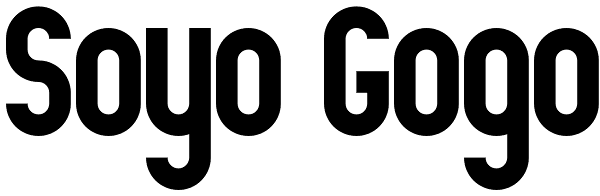
Soyo Gogo
Soyo Gogo was conceived to really make the most of OpenType features. Using contextual alternates, the letters change depending on what type of letter they're next to. The changes happen as you type, with stems wrapping round curves of neighbors in...